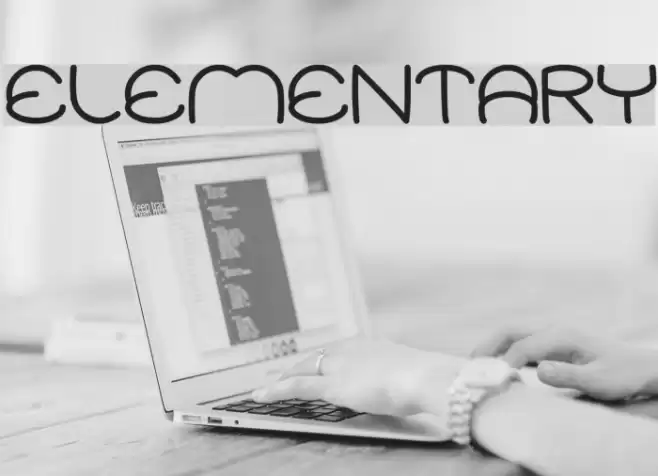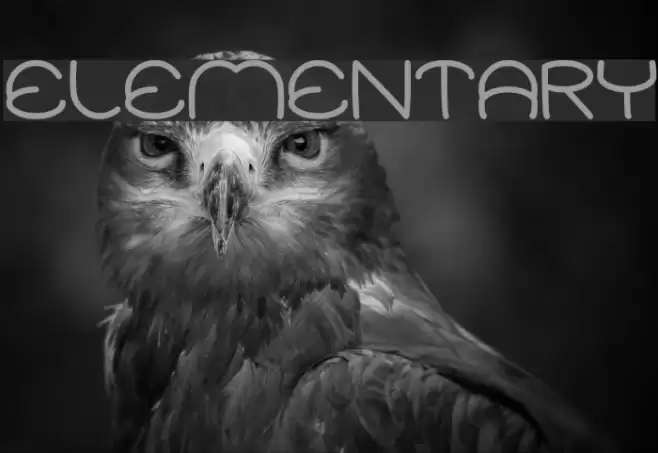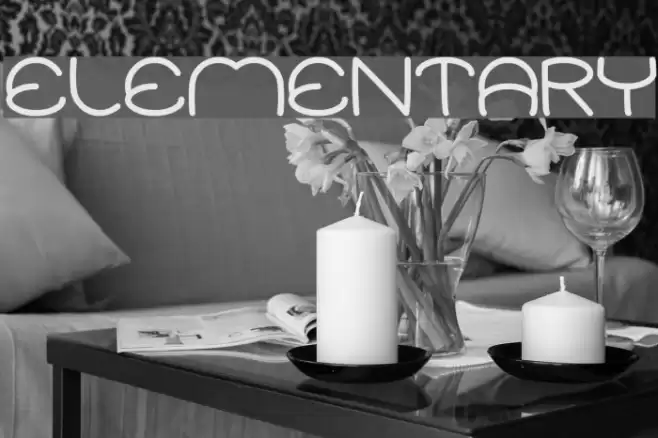
ELEMENTARY Font
ELEMENTARY Description
This font features a unique and playful design with rounded edges and a consistent stroke width. The characters are formed with a smooth, flowing style that gives a sense of movement and energy. The uppercase letters maintain a uniform height, while the lowercase letters are slightly smaller, creating a balanced and harmonious appearance. The font's distinct curves and loops add a whimsical touch, making it stand out in any design. Its legibility is high, even at smaller sizes, due to the clear and open shapes of the characters. This font is versatile and can be used in a variety of creative projects.
A playful, rounded font with smooth curves and consistent stroke width from Uncategorized fonts.
- Proposed Projects: Ideal for children's books, playful branding, greeting cards, and creative posters.
- Overall Style: Playful
- Use Case: Headlines, Logos, Creative projects